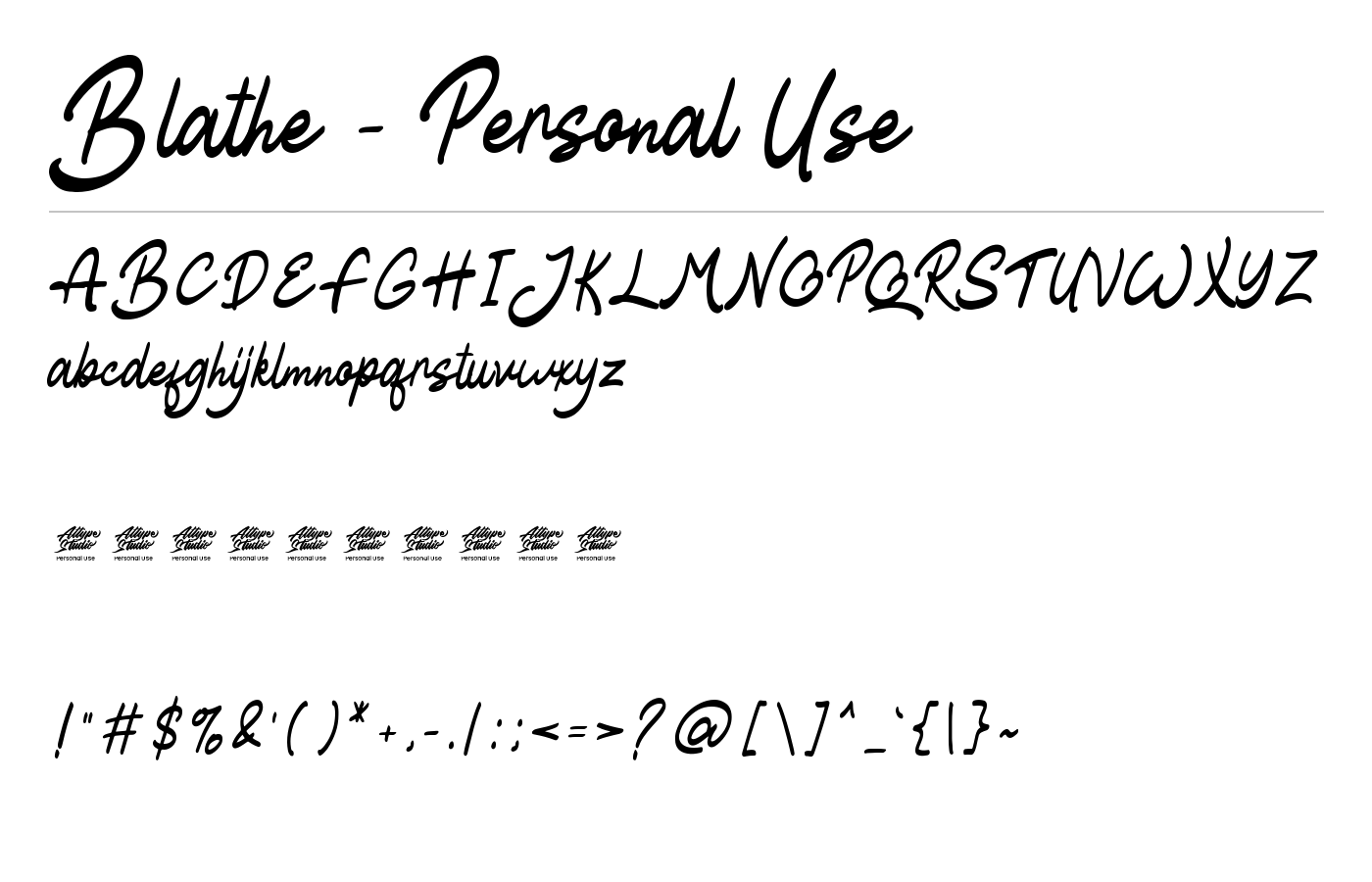
Blathe is a lively script font with a smooth, handwritten style that feels both casual and expressive. Its medium weight and flowing strokes give it a friendly, approachable vibe, making it ideal for personal projects, logos, and creative branding that seek a warm, authentic touch. This font works well where a human, informal feel is desired, lending personality without sacrificing readability.
Blathe - Personal Use Font